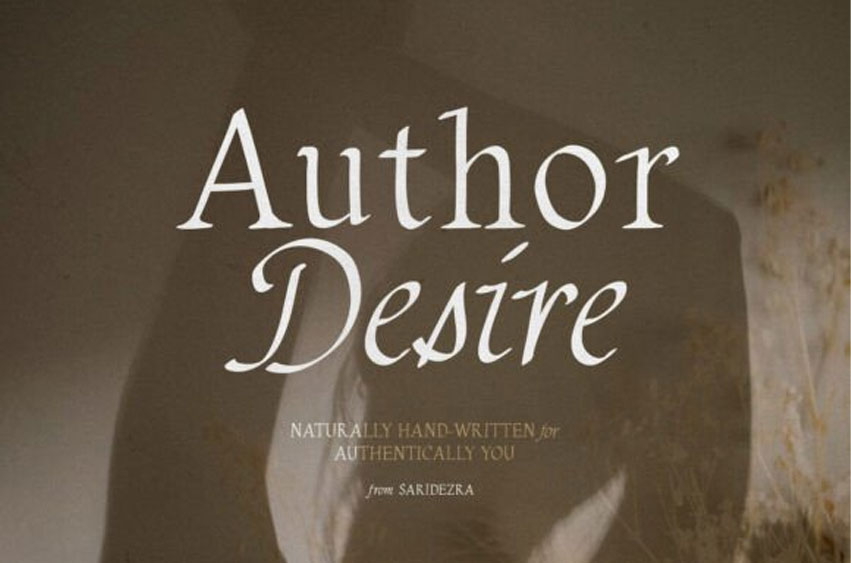
Author Desire Font
Author Desire Font is a serif family that has a natural and vintage look. With 4 styles, including regular, italic, bold, and bold italic versions, you can choose for your stunning and naturally handmade project.
You can also use this font for any purpose, such as logotype, wedding invitations, and any design that needs vintage and old yet modern looks. This font also supports multiple languages!